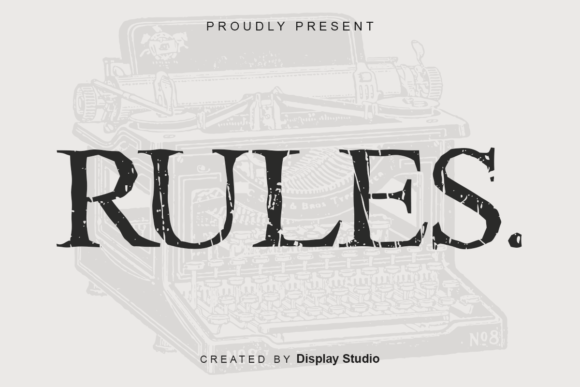
Rules Font
Indulge in the world of Rules Font, the ultimate display font that will transform your designs into captivating masterpieces. Its rugged texture and bold stance command attention, making it the perfect choice for those seeking a statement-making visual impact.
Whether you're crafting eye-catching t-shirts, designing dynamic sportswear, creating unforgettable logos, or seeking to revamp your advertising campaigns, Rules Font empowers you to make an indelible mark. Its versatility extends effortlessly to the world of fashion, promising to elevate your clothing designs and accessories with a touch of rugged sophistication.
Beyond its aesthetic allure, Rules Font is a gateway to expressing your individuality. Its raw and edgy character invites you to break free from the ordinary and forge a visual identity that truly resonates with your brand's essence. Unleash your creativity and discover a world of possibilities with Rules Font, where boldness meets brilliance.